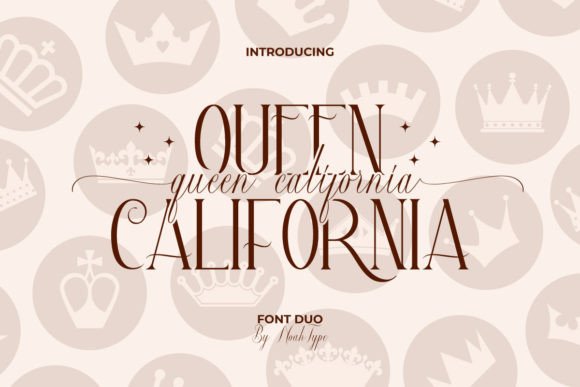
Embrace Elegance with Queen California Font Duo: The Perfect Touch for Fashion and Style
Embark on an artistic journey with Queen California Font Duo, a captivating collection crafted to exude elegance and sophistication. Immerse yourself in a world of visual allure, where every letter dances with grace and poise. Let the luxury serif display font elevate your designs, while the enchanting handwriting calligraphy script adds a touch of personal charm. Prepare to be captivated by the seamless fusion of these two styles, creating a magnetic pull that draws attention and ignites imagination.
With Queen California Font Duo, you hold the key to unlocking a world of creative expression. Step into the world of fashion and style, where this font family reigns supreme, adding a touch of luxury and sophistication to your every creation. Picture your designs adorned with the elegant curves and delicate flourishes of Queen California, leaving a lasting impression on all who behold them.
Unleash your creativity and explore the endless possibilities that await. Craft wedding invitations that exude timeless romance, social media posts that radiate elegance, magazine layouts that captivate readers, and branding materials that speak volumes about your dedication to excellence. With Queen California Font Duo, you have the power to transform the ordinary into the extraordinary.
Indulge in the ease and versatility of Queen California Font Duo, meticulously designed for effortless use. Access all glyphs and swashes with ease, thanks to the PUA encoding, ensuring seamless integration into your design workflow. Open the door to a world of creative freedom and let your imagination soar.
Experience the allure of Queen California Font Duo, a font family that embodies grace, sophistication, and endless possibilities. Join the ranks of those who seek beauty and elegance in their designs, and elevate your creations to new heights of artistry. Embrace the charm of Queen California and let your designs blossom with timeless elegance.